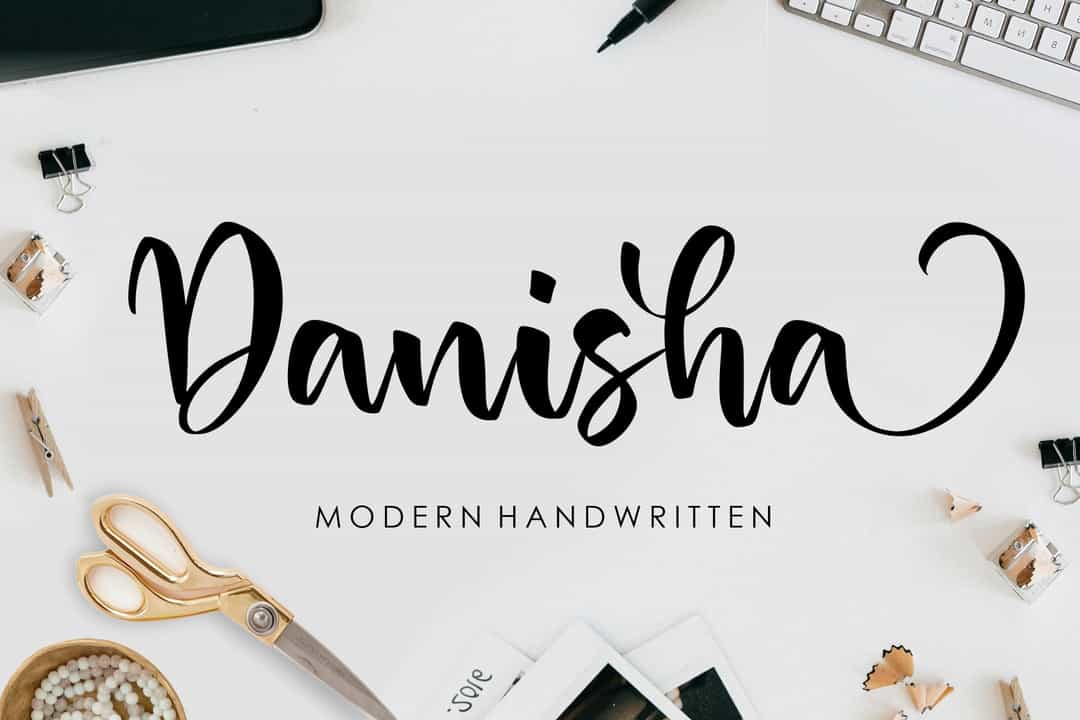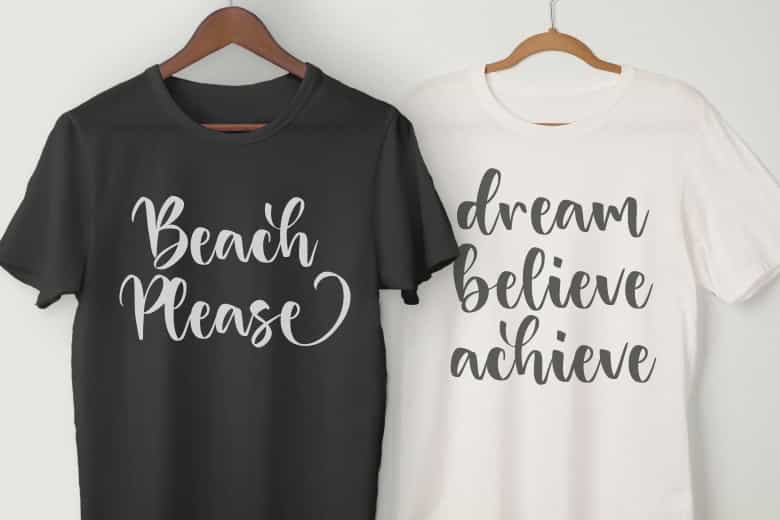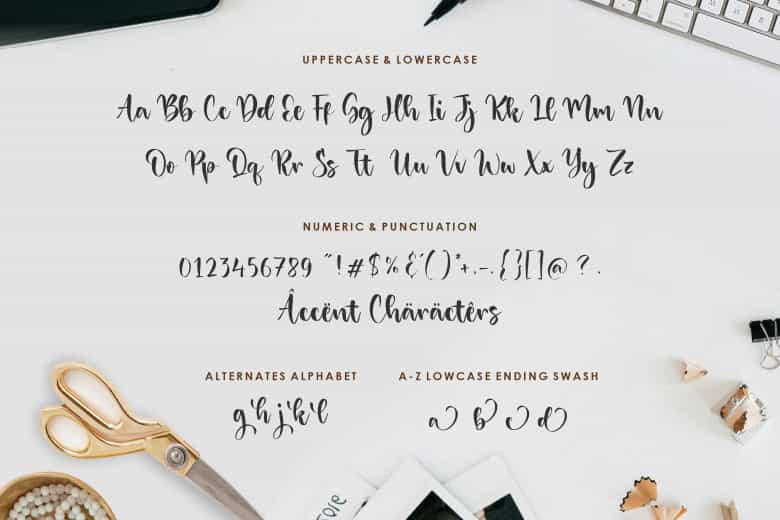
Danisha is a romantic and sweet handwritten script typeface in calligraphy featuring graceful characters dancing across its bottom edge. Casual yet sophisticated in appearance, Danisha lends itself well for wedding invitations, logos letters headings t-shirt labels signage news badges among many other uses.